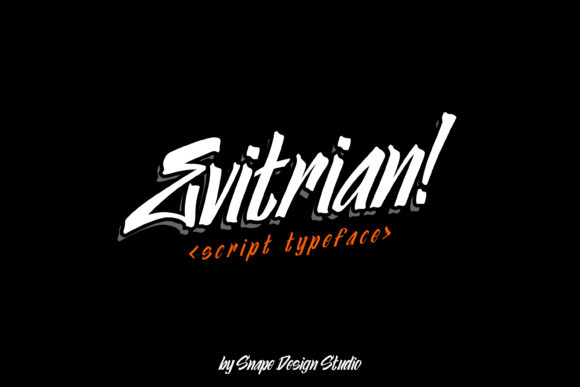
Evitrian Font: Elevate Your Designs with a Strong, Urban Styled Display Font
In the world of typography, fonts play a crucial role in making or breaking a design. A well-chosen font can elevate your design, making it stand out from the crowd, while a poorly chosen one can make it look dull and unappealing. If you’re looking for a font that can add a touch of modernity and uniqueness to your designs, look no further than the Eviotrian font. In this article, we’ll take a closer look at the Eviotrian font, its features, and how it can help take your designs to the next level.
What is Eviotrian Font?
Eviotrian is a strong, urban styled display font that is incredibly modern and unique. Designed to make a statement, this font is perfect for designers who want to add a touch of edginess to their designs. With its clean lines, bold strokes, and urban feel, Eviotrian is sure to turn heads. Whether you’re designing a logo, a poster, or a website, this font is sure to make your design stand out from the crowd.
Key Features of Eviotrian Font
- Strong and Bold: Eviotrian font is a display font that is designed to make a statement. Its strong and bold strokes make it perfect for headlines, titles, and other design elements that need to stand out.
- Urban Styled: Eviotrian font has an urban feel that makes it perfect for designs that need a touch of edginess. Its modern and sleek design makes it perfect for logos, posters, and other designs that need to look contemporary.
- Unique and Modern: Eviotrian font is a unique and modern font that is sure to make your designs stand out. Its clean lines and bold strokes make it perfect for designs that need a touch of sophistication.
- Versatile: Eviotrian font is a versatile font that can be used for a variety of designs, including logos, posters, websites, and more.
How to Use Eviotrian Font in Your Designs
Using Eviotrian font in your designs is easy. Here are a few tips to get you started:
Design Tips
- Use it for Headlines: Eviotrian font is perfect for headlines and titles. Its strong and bold strokes make it easy to read and attention-grabbing.
- Pair it with Other Fonts: Eviotrian font can be paired with other fonts to create a unique and interesting design. Try pairing it with a sans-serif font for a modern look.
- Experiment with Colors: Eviotrian font looks great in a variety of colors. Experiment with different colors to find the one that works best for your design.
- Use it for Logos: Eviotrian font is perfect for logos. Its unique and modern design makes it easy to recognize and remember.
Benefits of Using Eviotrian Font
There are many benefits to using Eviotrian font in your designs. Here are a few:
Benefits
- Unique and Memorable: Eviotrian font is a unique and memorable font that is sure to make your designs stand out.
- Modern and Sophisticated: Eviotrian font has a modern and sophisticated design that makes it perfect for designs that need to look contemporary.
- Versatile: Eviotrian font is a versatile font that can be used for a variety of designs, including logos, posters, websites, and more.
- Easy to Read: Eviotrian font is easy to read, making it perfect for designs that need to communicate a message.
In conclusion, Eviotrian font is a strong, urban styled display font that is incredibly modern and unique. With its clean lines, bold strokes, and urban feel, Eviotrian is sure to make your designs stand out from the crowd. Whether you’re designing a logo, a poster, or a website, this font is sure to add a touch of sophistication and edginess to your designs. So why wait? Download Eviotrian font today and take your designs to the next level!